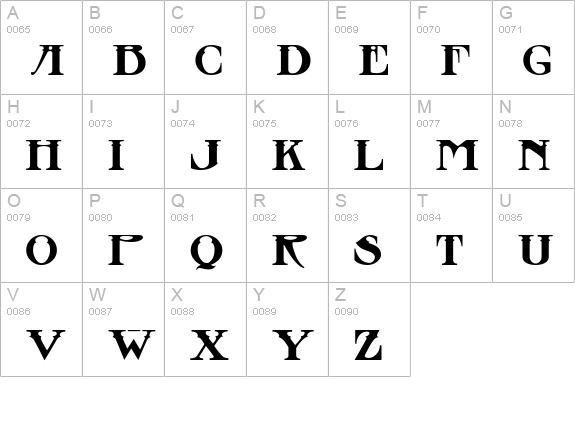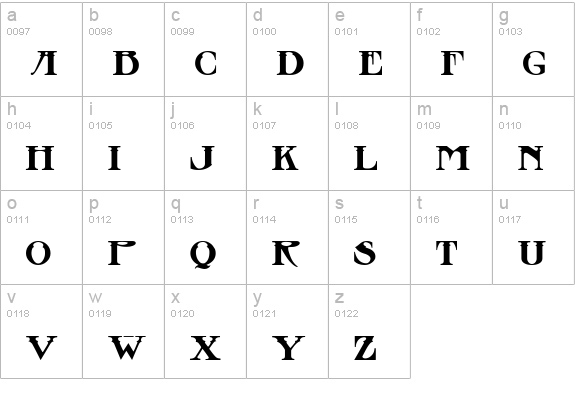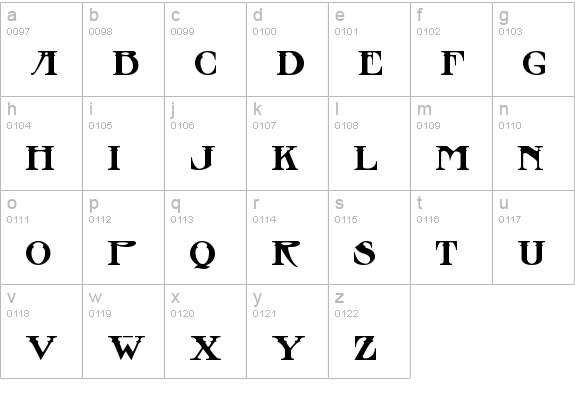
Stowaway Font Details
Stowaway font is a charming and versatile typeface that brings a touch of whimsy to any design project. With its playful yet elegant appearance, Stowaway is perfect for adding a unique and creative flair to your designs. Whether you're working on a branding project, website design, or any other creative endeavor, Stowaway is sure to make a lasting impression. Best of all, Stowaway font is available for free download at FontsMarket.com. This means you can easily access this delightful font and start using it in your projects right away. Don't miss out on the opportunity to add Stowaway font to your font library and unleash your creativity with this beautiful typeface. Download it now and let your imagination soar with Stowaway font!